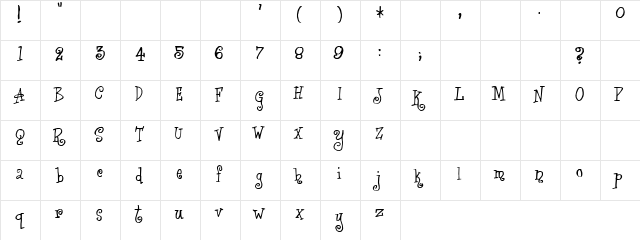
Dog Tail Regular
Design Context for Dog Tail Typeface
Dog Tail is a composed and adaptable typeface that performs quietly and consistently across a wide range of design contexts.